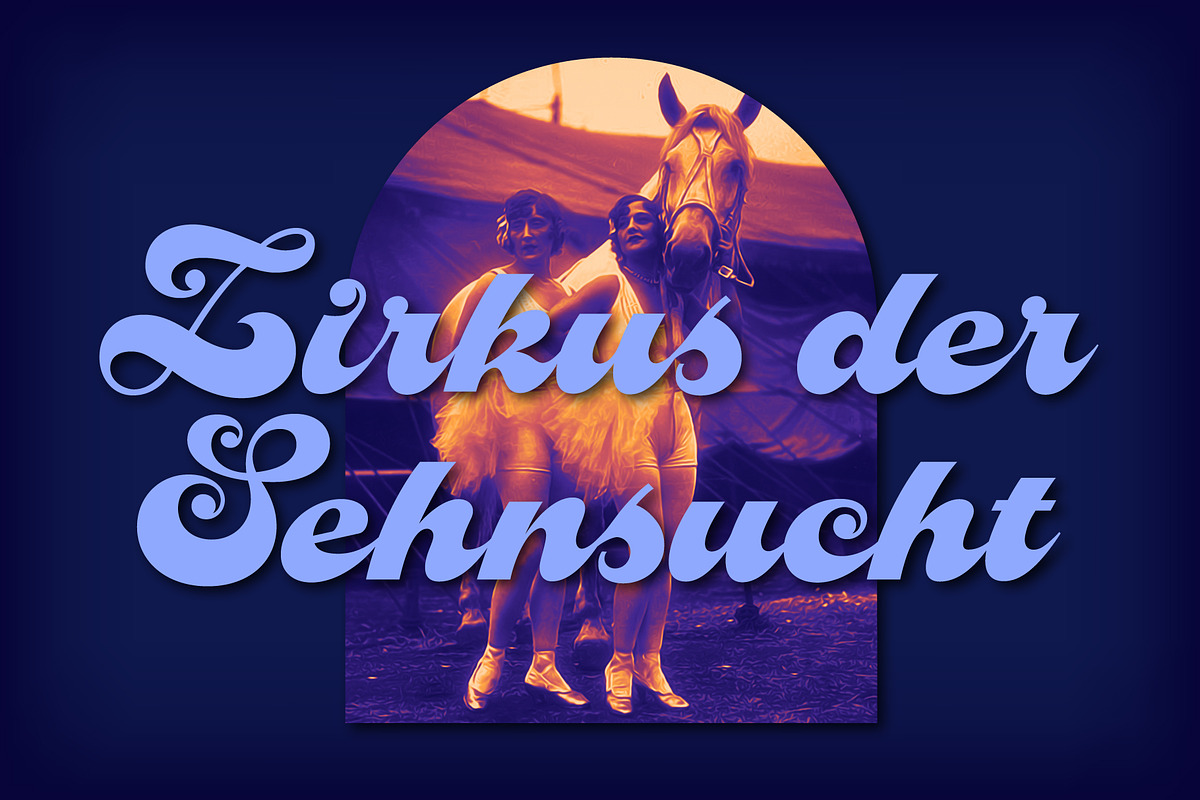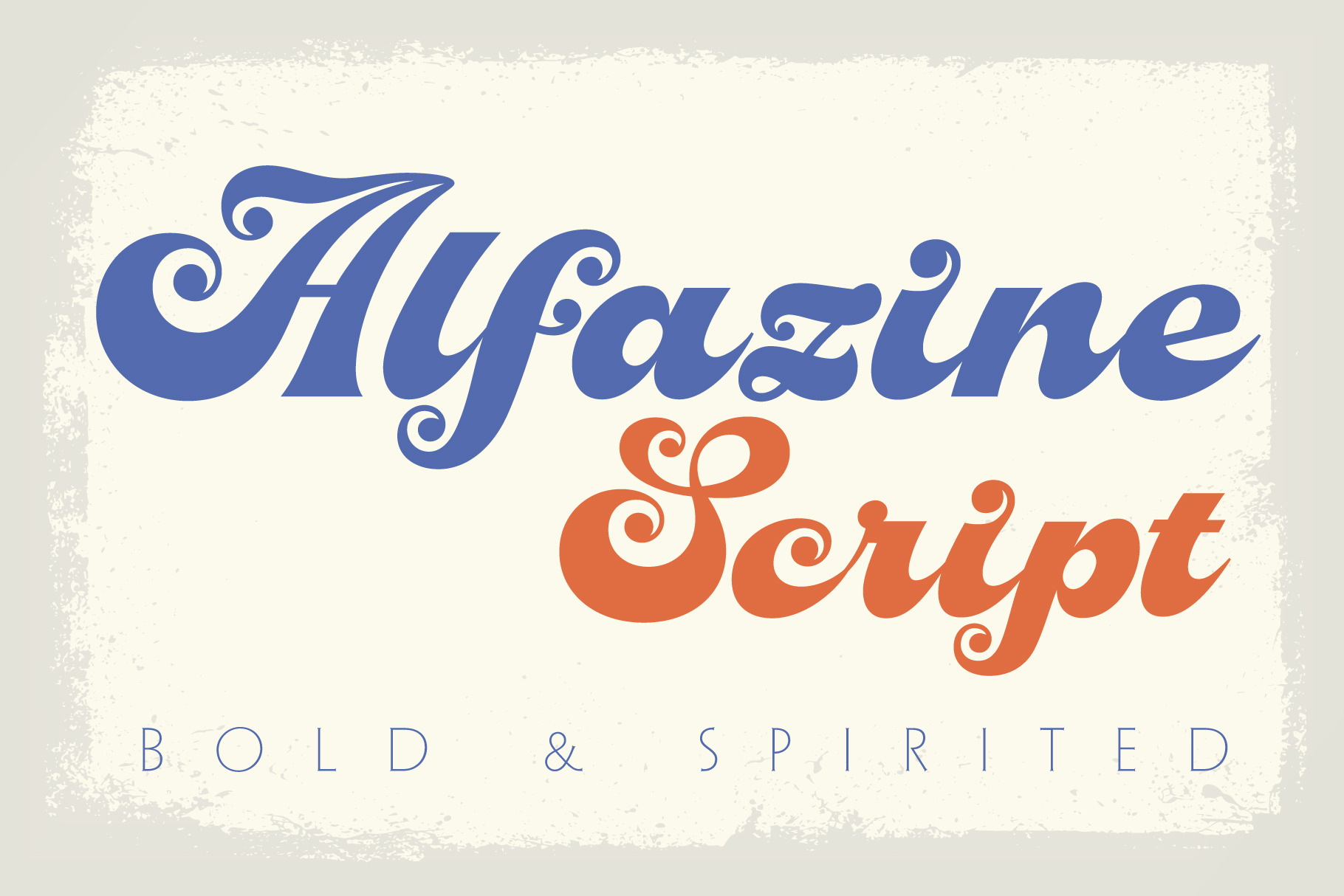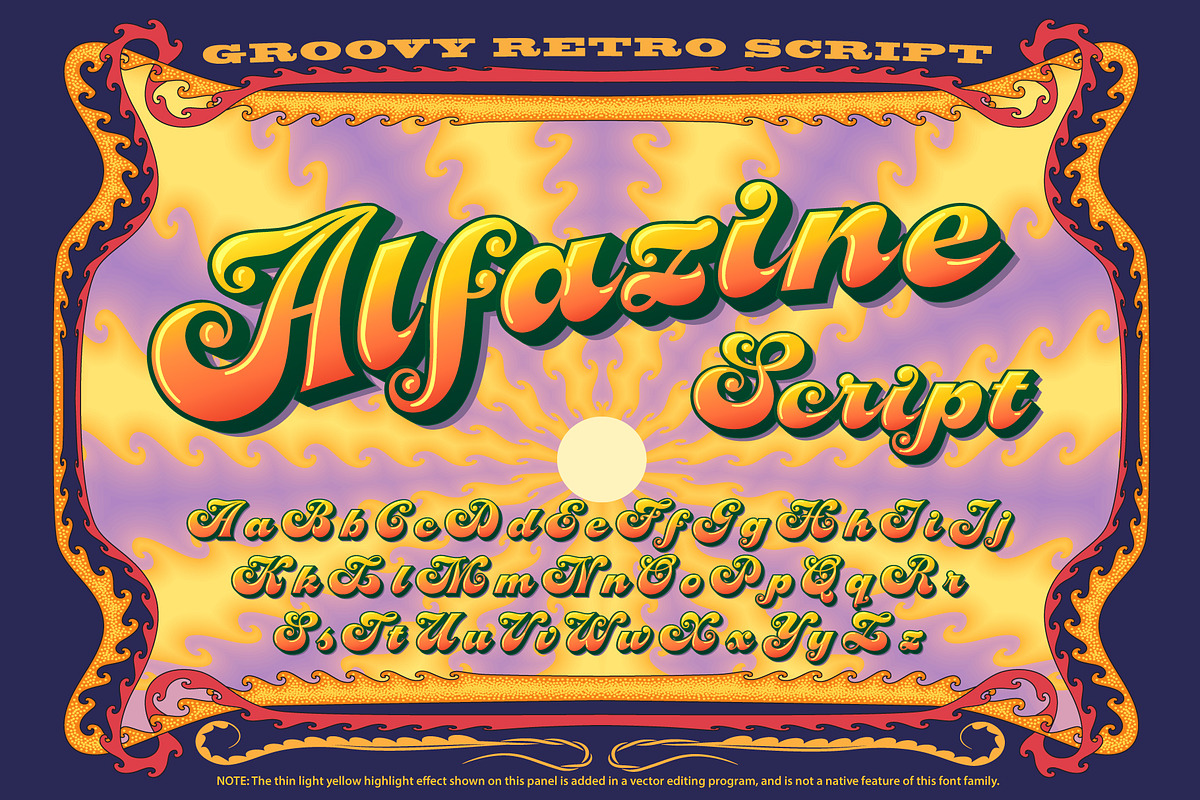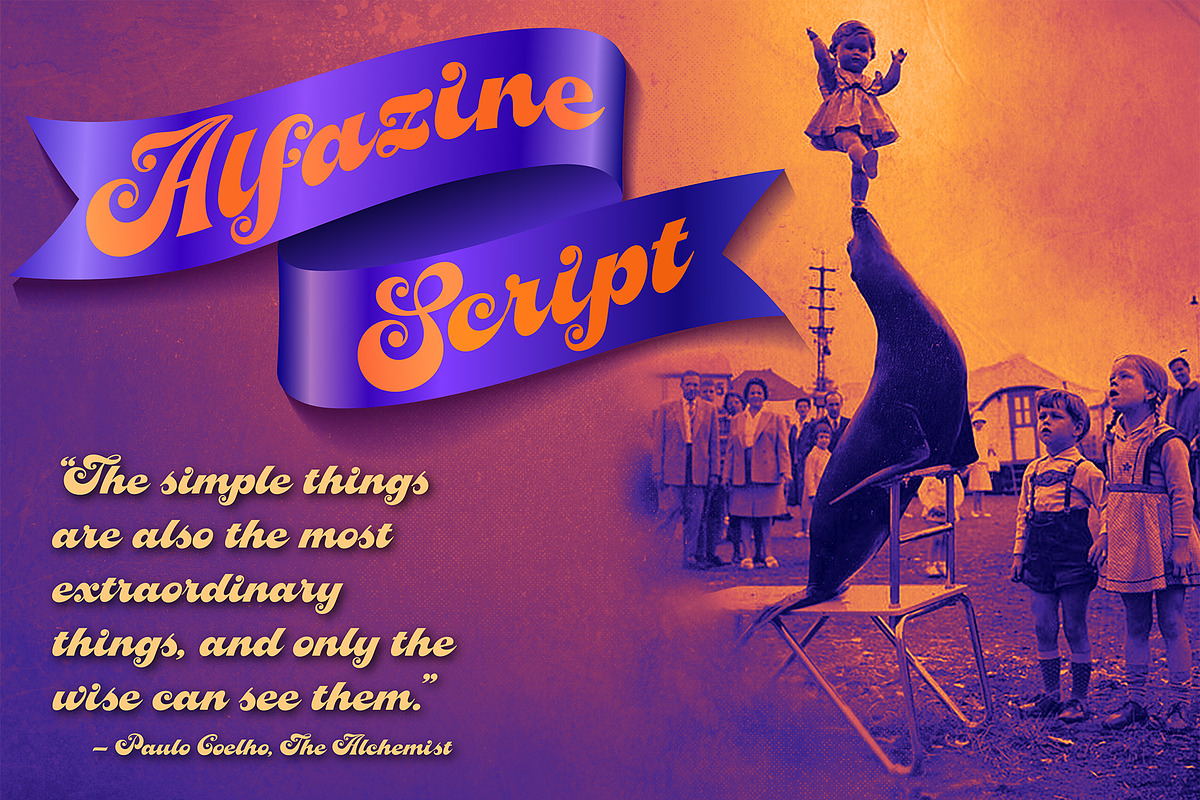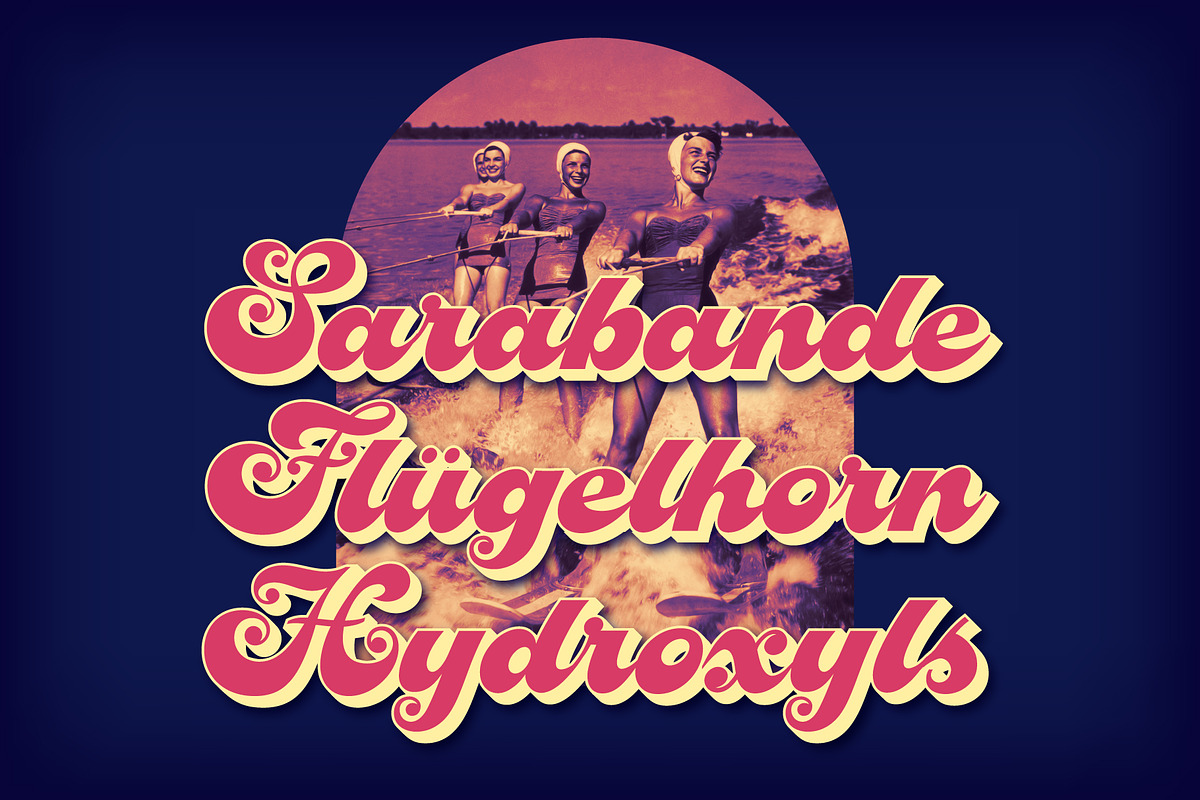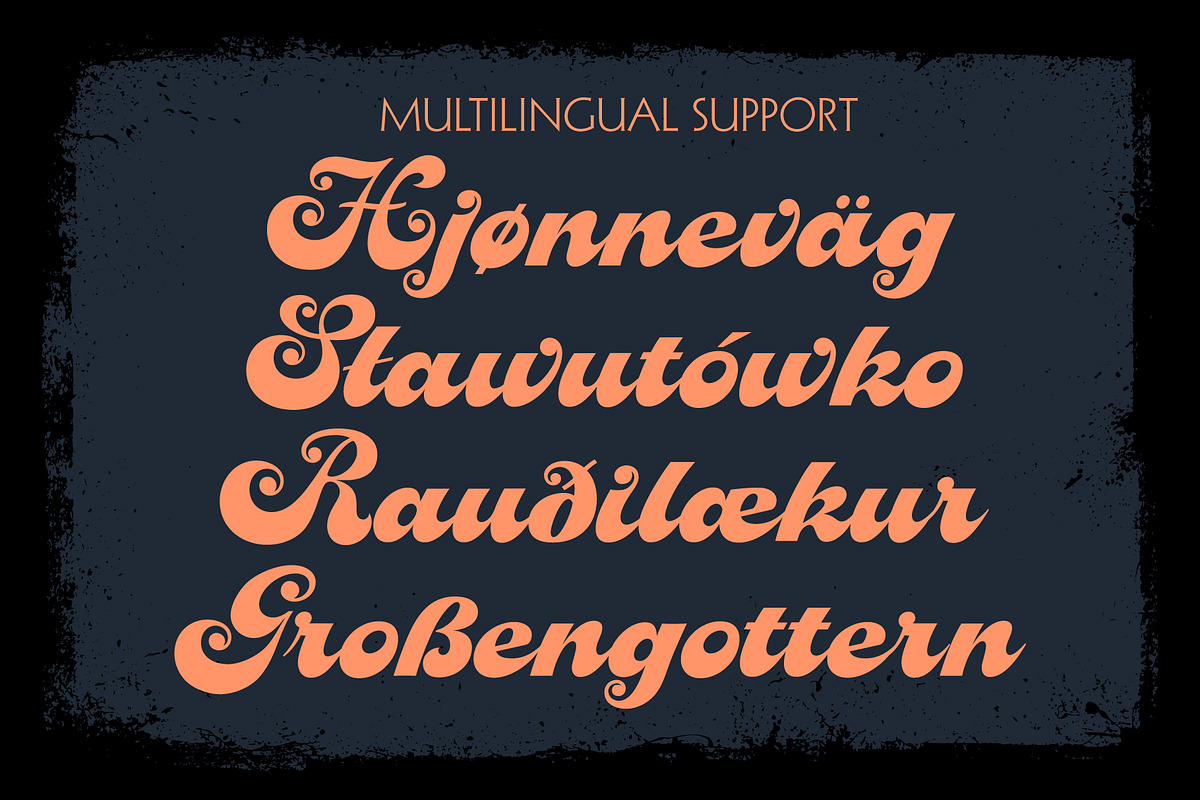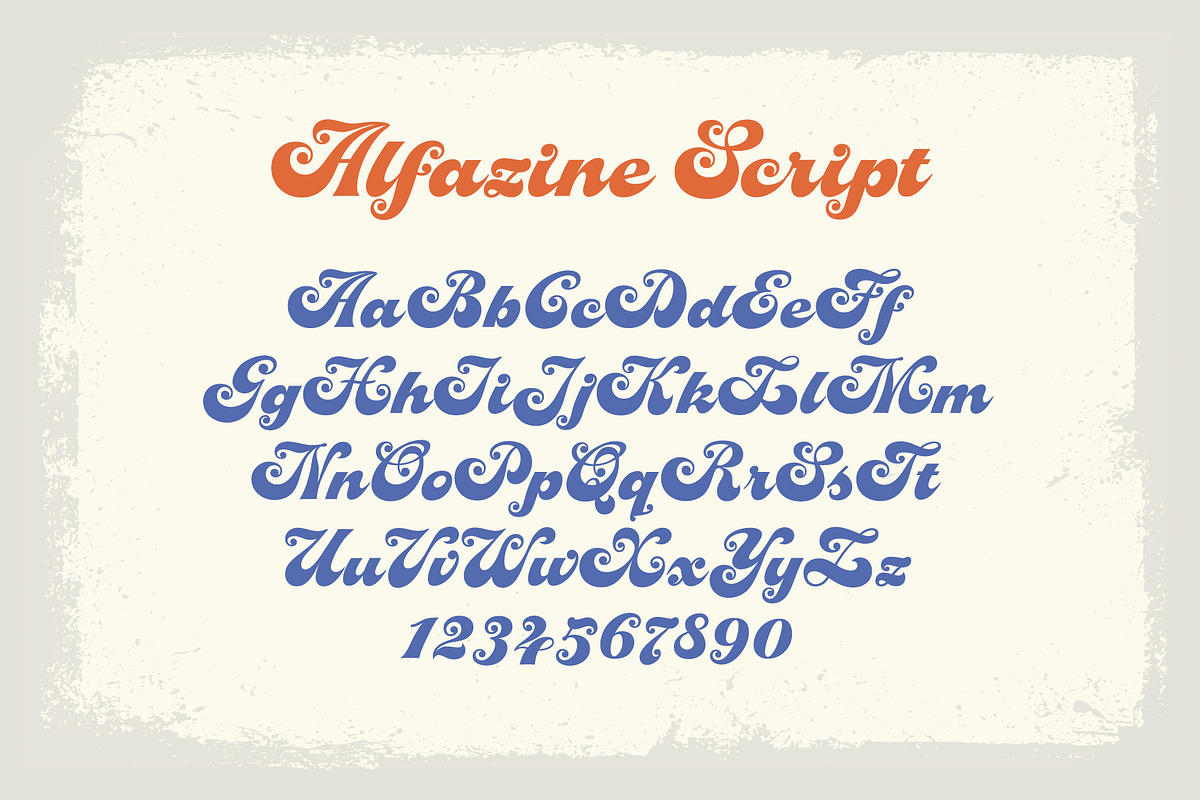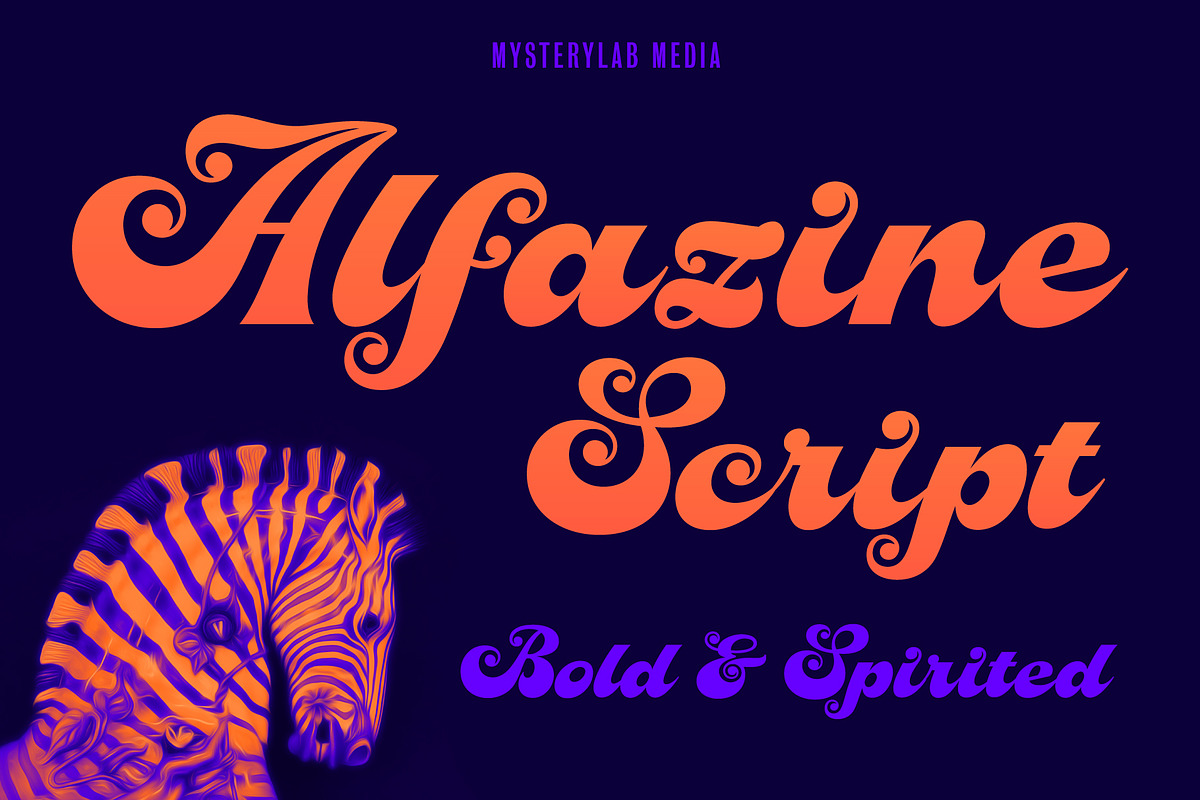
Alfazine Bold Script Font
Alfazine Script is a bold and spirited script with extensive ornate detailing. This versatile font is evocative of antique signpainters' letters, circus wagon & carnival booth graphics, groovy 1960s psychedelic scripts, and even sportswear team insignias, all combined with a modern approach towards lively curlicues and ball finial stroke ends. As with all other font offerings from Mysterylab Designs, we take great care with artful kerning and weight-matching of glyphs to allow this font to be used not only at attention-grabbing headline and logo sizes, but also at small body copy sizes in extended passages.
Alfazine also features an extruded shadow version that's very useful for designing logos and customized layered lettering. Both variations are provided as OTF, TTF, and Webfonts